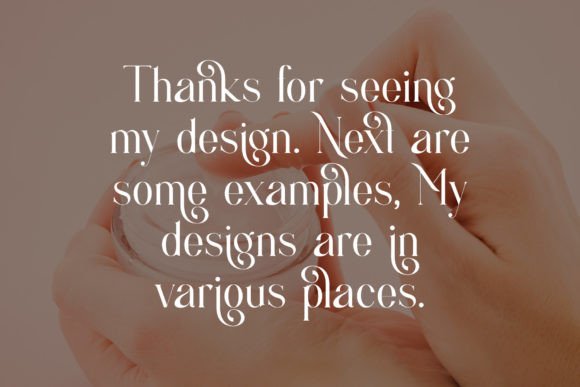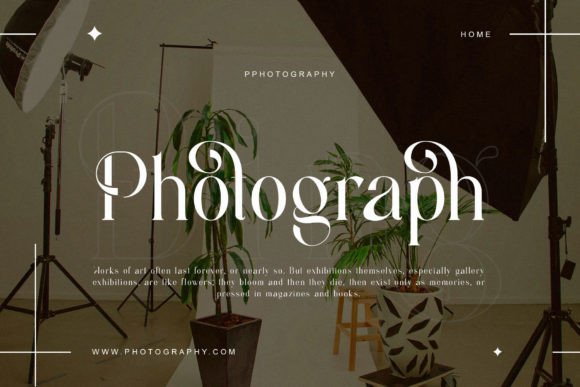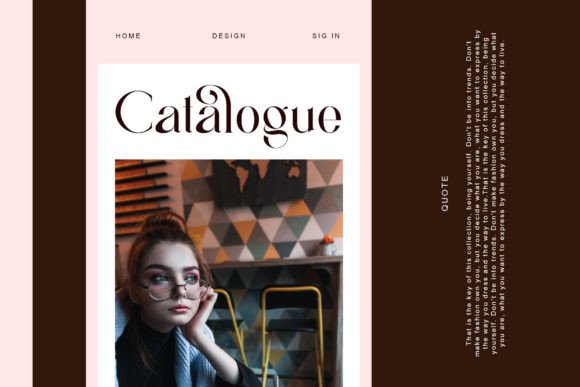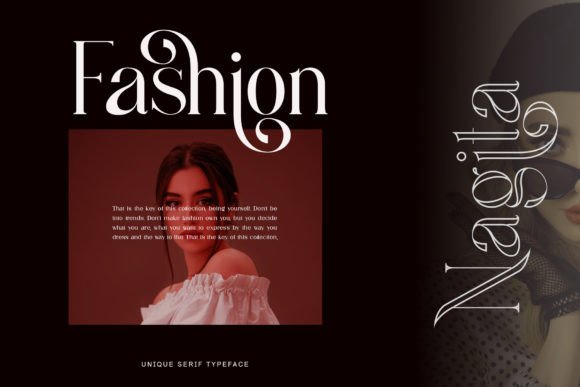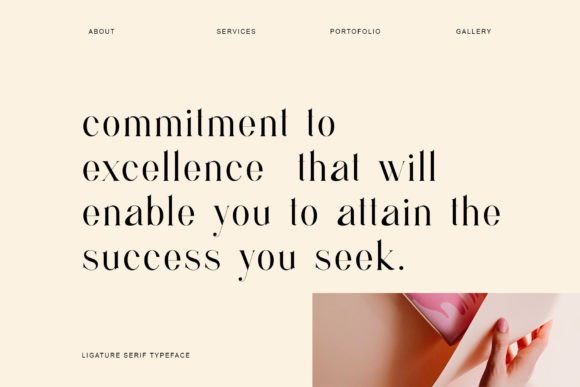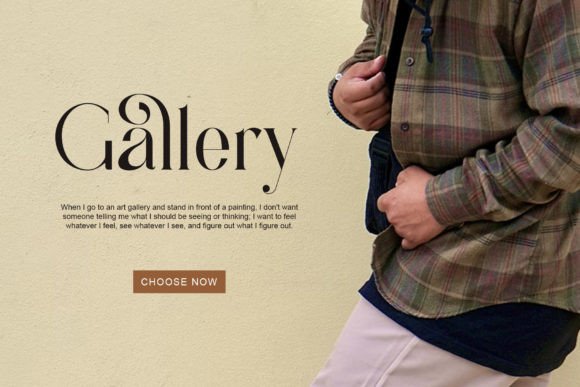
The Bling is On: Elevate Your Design with the Perfect Font
Do you remember that moment when you’re working on a design project, and you need the perfect font to make it shine? The one that screams luxury, sophistication, and style? For me, it’s a moment of pure excitement and creativity, like hitting the jackpot of typography.
That’s exactly what you get with the Bling Font, a stunning serif font designed to make your designs stand out from the crowd. With its sleek edges and clean lines, this font is a must-have for fashion and beauty branding, editorial design, and high-end product packaging. Its refined style and classic design make it a valuable asset for any designer looking to elevate their projects.
Bling Font Key Features
- Font Family: Bling Font is a unique, hand-drawn font family designed to add a touch of luxury and glamour to any design project.
- Character Count: Includes over 500 characters, including uppercase and lowercase letters, numbers, punctuation marks, and special characters.
- Unique Characteristics: Features intricate, hand-drawn details and ornate flourishes that set it apart from more traditional font families.
Bling Font Review
First of all, let’s talk about what works well with Bling Font. ✨ I love the glamorous, over-the-top feel it gives to any text. It’s perfect for adding a touch of luxury or celebration to your design projects. The font is highly customizable, allowing you to adjust the color, size, and even the sparkle effect to suit your needs.
- ✨ Glamorous and attention-grabbing: Bling Font is perfect for adding a touch of luxury or celebration to your design projects.
- ✨ Highly customizable: You can adjust the color, size, and even the sparkle effect to suit your needs.
However, I do have to mention a few limitations ⚠️. Bling Font can be quite overpowering, so use it sparingly to avoid overwhelming your design. Additionally, the font may not be suitable for body text, as it can be difficult to read in certain situations.
- ⚠️ Can be overpowering: Use Bling Font sparingly to avoid overwhelming your design.
- ⚠️ May not be suitable for body text: The font can be difficult to read in certain situations.
Overall, I think Bling Font is a great addition to any designer’s toolkit. While it has its limitations, it’s perfect for adding a touch of glamour and excitement to your designs.
Bling Font: A Practical Application Guide
Tips for Getting the Most Out of Bling Font
Here are some tips for getting the most out of Bling Font:
- Use Bling Font in bold or italic styles to add emphasis to your text.
- Combine Bling Font with other font styles to create a unique and eye-catching design.
- Experiment with different font sizes and colors
Alternatives to Bling Font
Great Vibes Font is a beautiful, modern script font ideal for headings and titles. It’s perfect for designers who want to add a touch of elegance and sophistication to their projects. Compared to Bling Font, Great Vibes Font is more refined and less flashy, making it suitable for a wider range of designs.
Dancing Script Font is a fun, cursive script font perfect for creating a playful and energetic atmosphere. It’s ideal for designers who want to add a sense of whimsy and creativity to their projects. Compared to Bling Font, Dancing Script Font is more dynamic and expressive, making it suitable for designs that require a lot of personality.
Carolyna Pro Font is a stylish, modern script font with a touch of luxury. It’s perfect for designers who want to add a sense of sophistication and glamour to their projects. Compared to Bling Font, Carolyna Pro Font is more polished and refined, making it suitable for high-end designs and luxury brands.